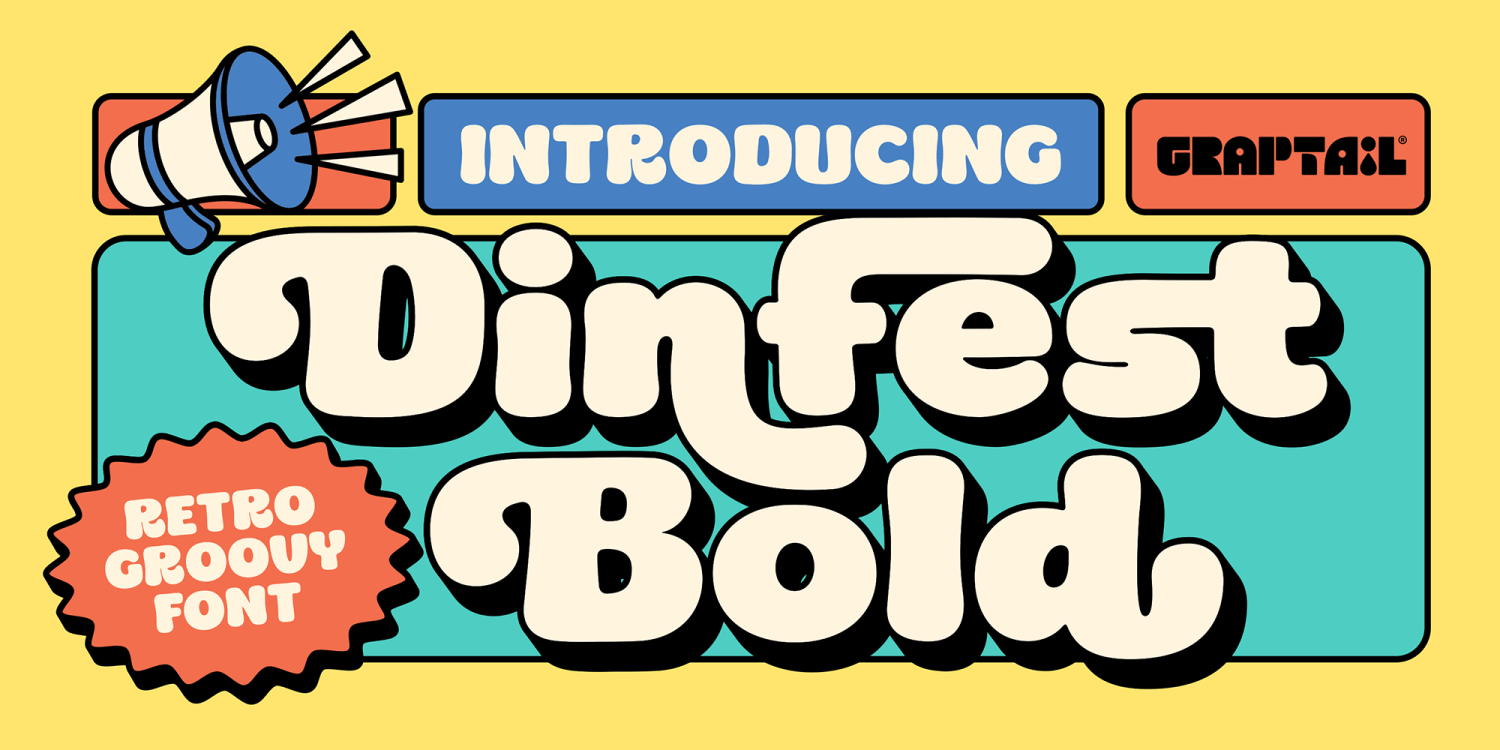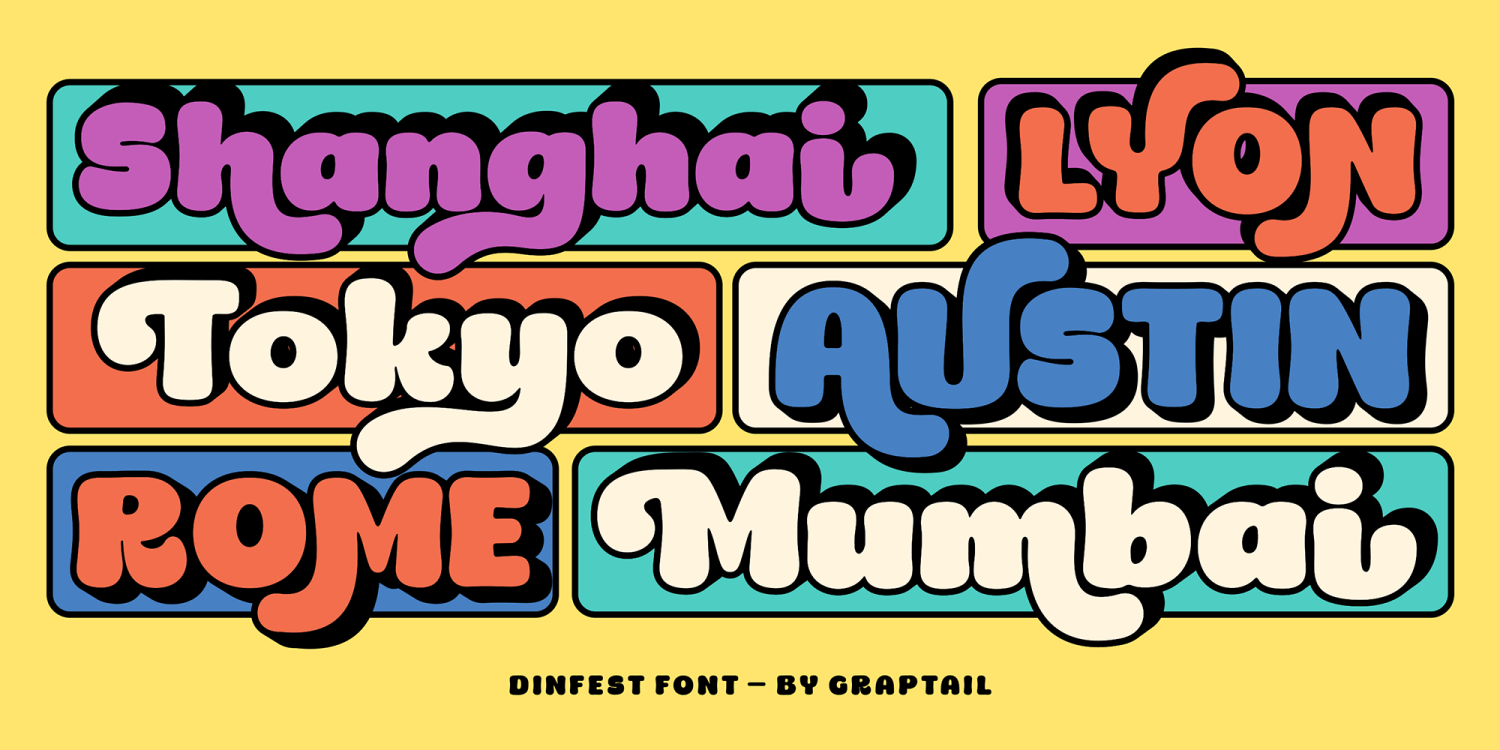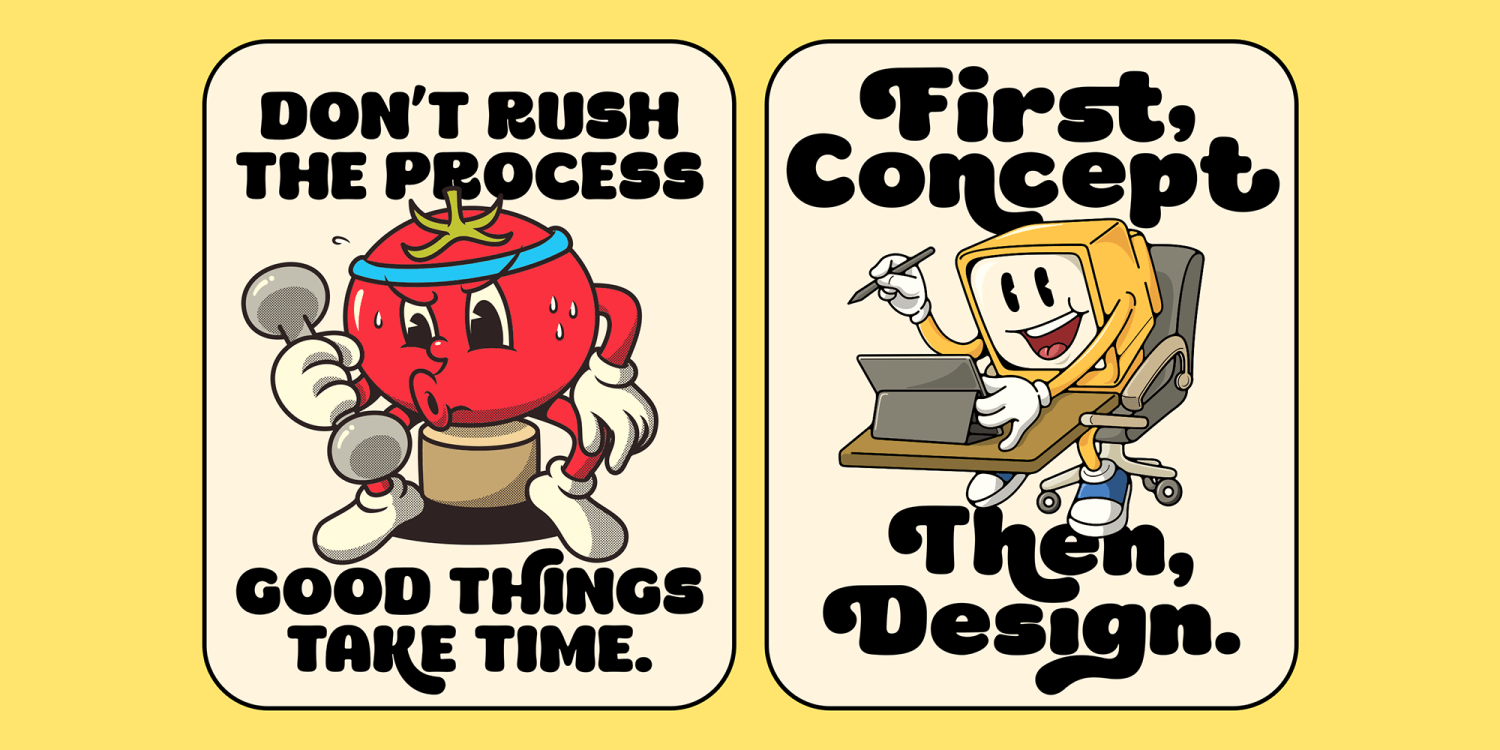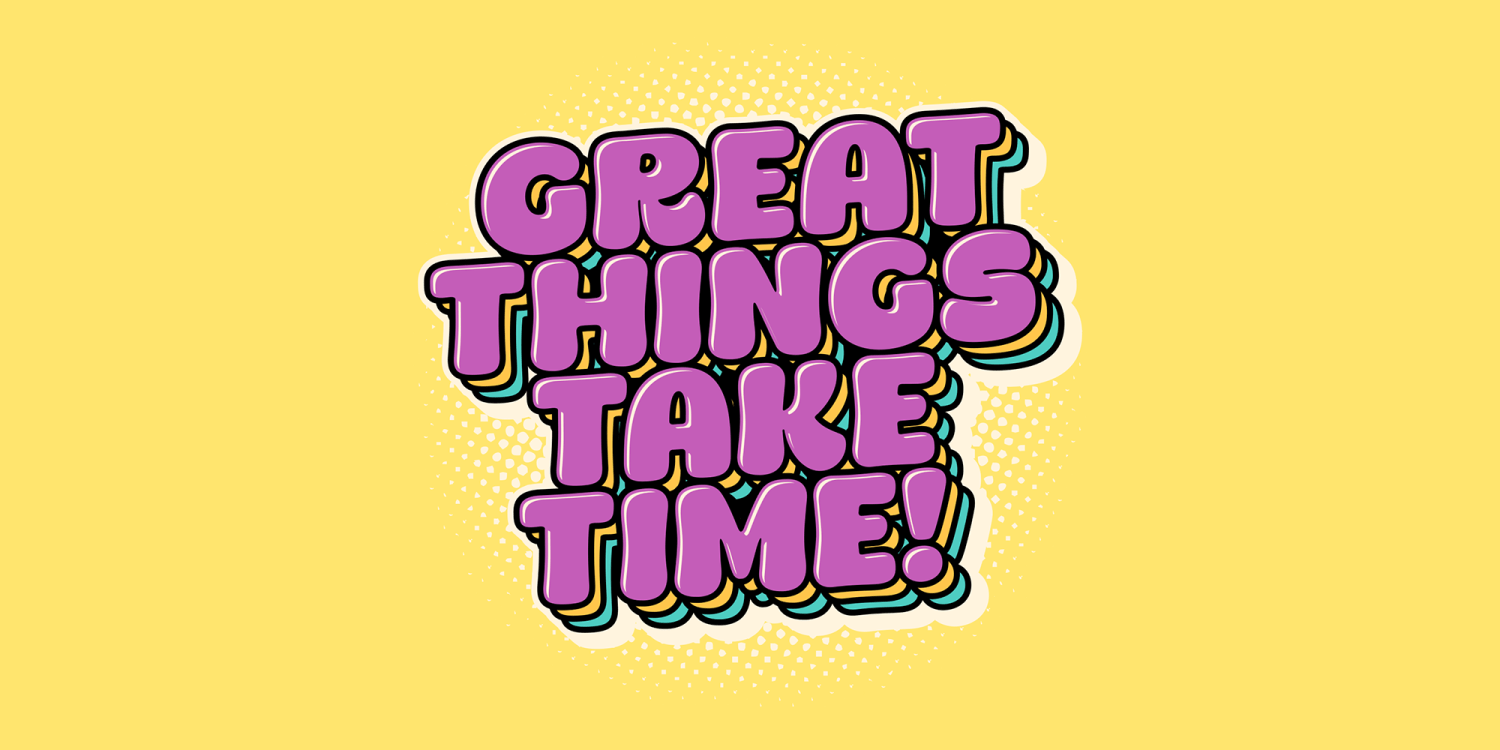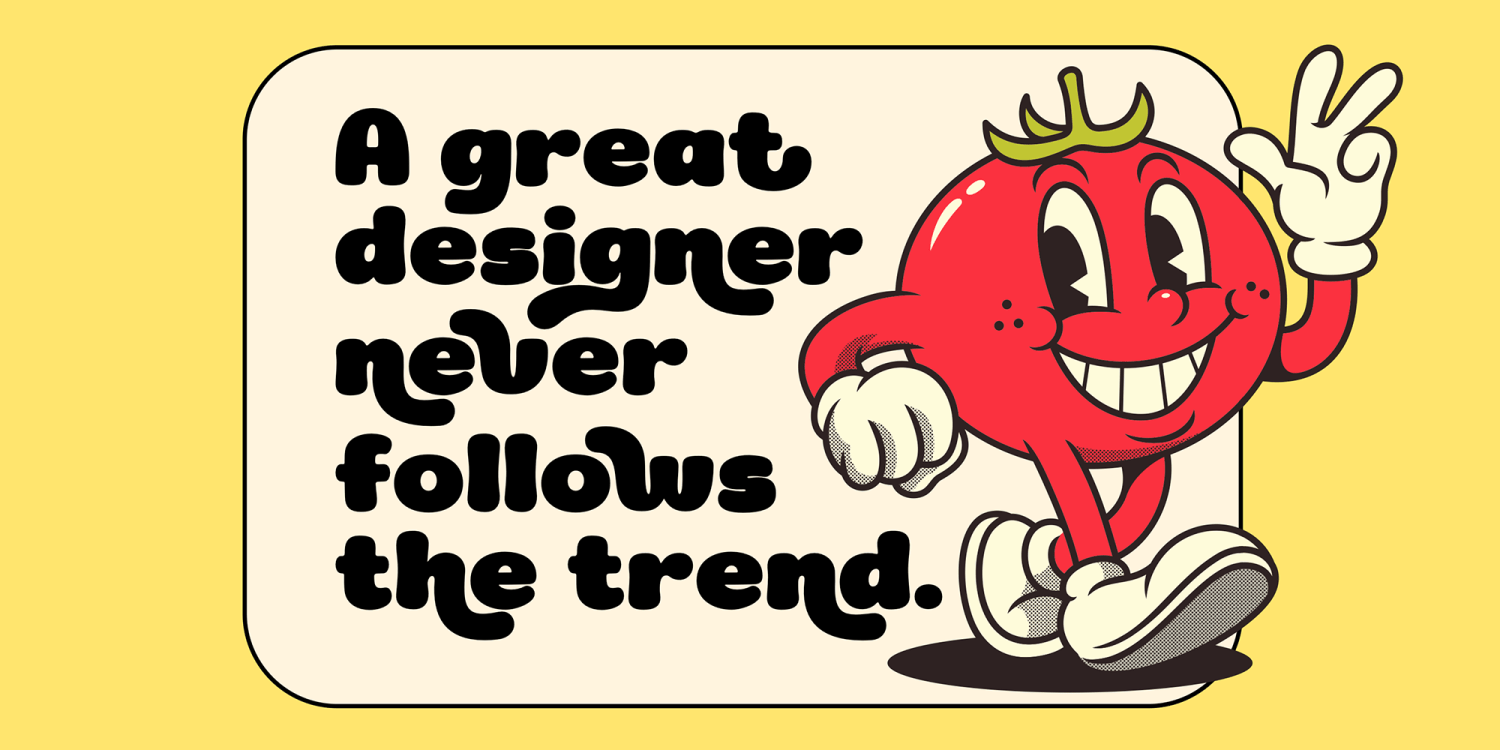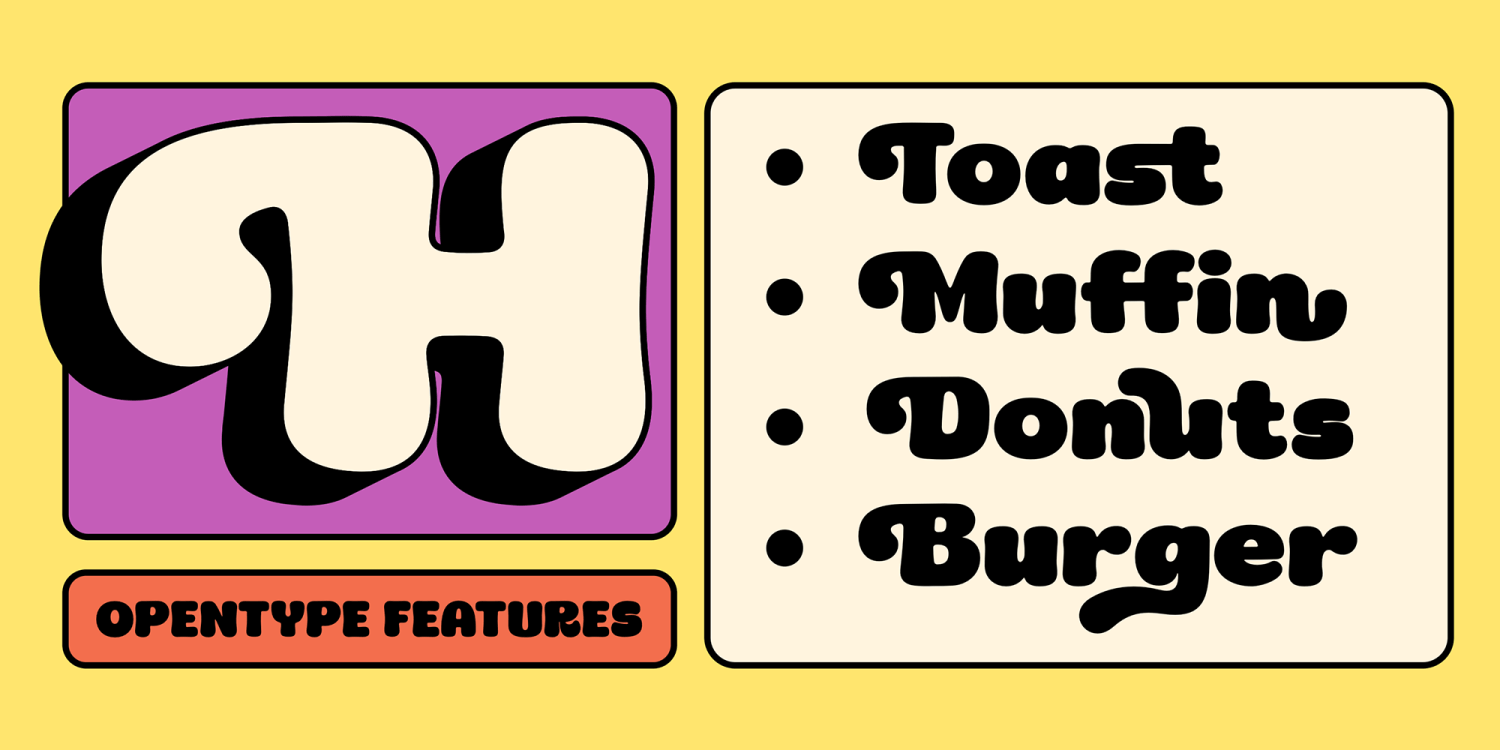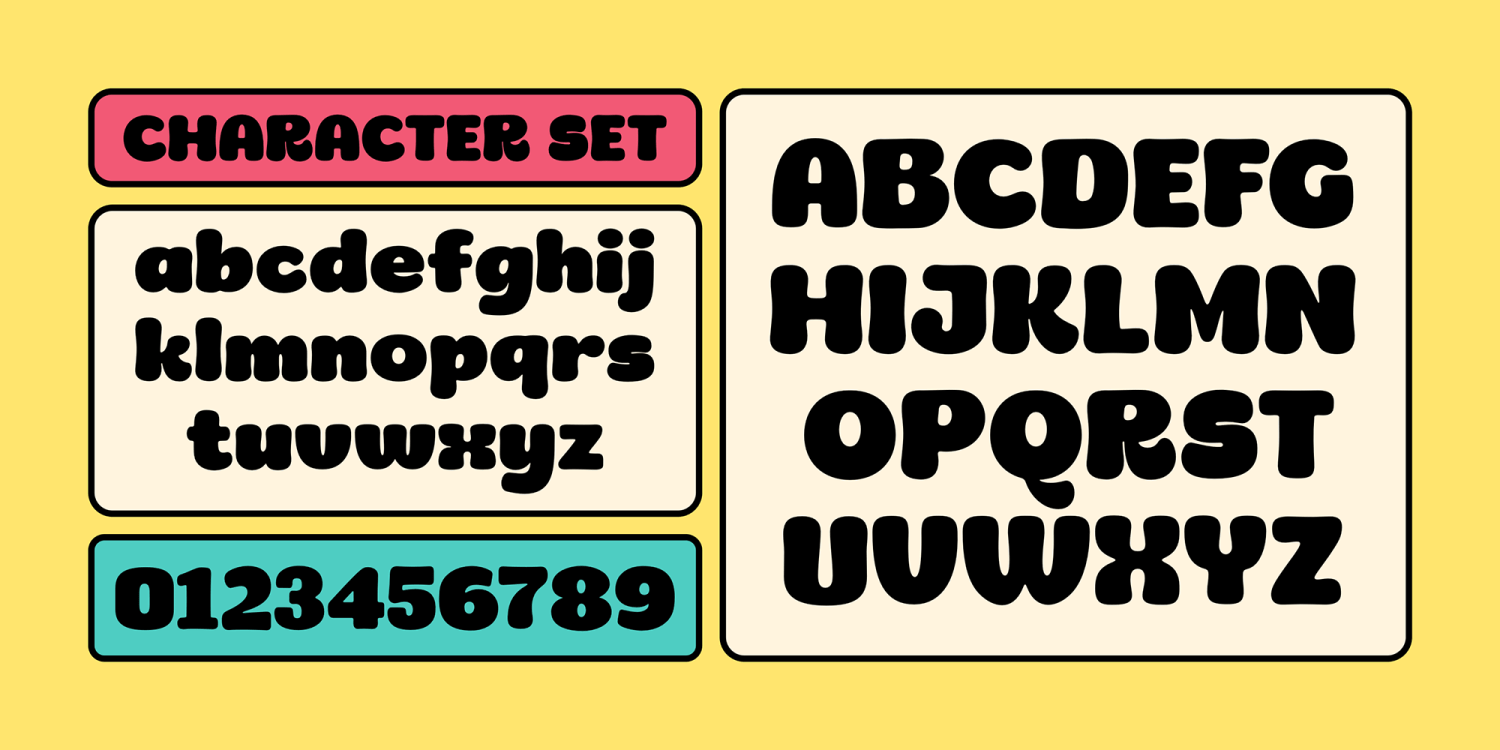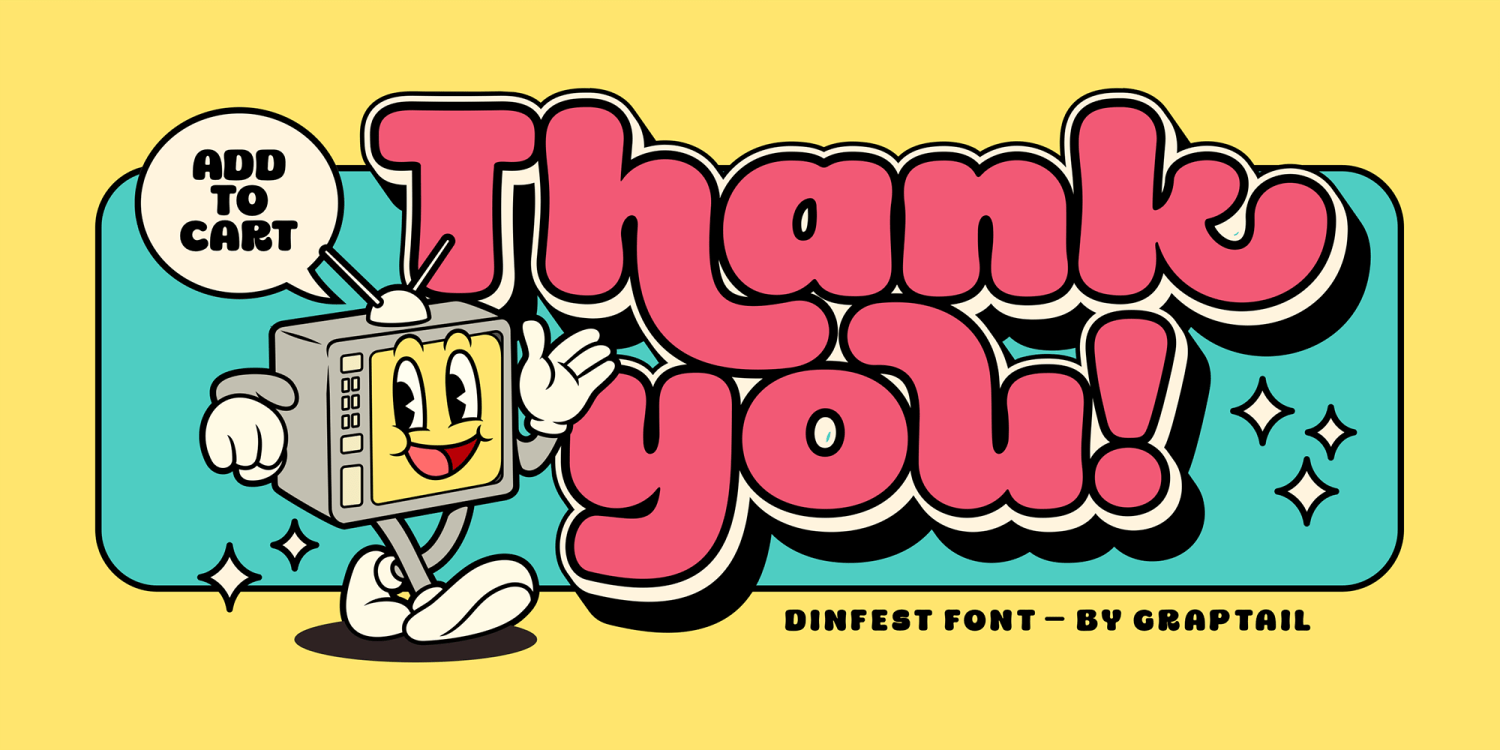
Dinfest Bold
Font Family by Graptail
Introducing Dinfest Bold, a retro-inspired font that evokes 1950s to 90s nostalgia. This font is perfect for creating vintage-themed designs and giving it a touch of nostalgia and personality.
Dinfest Bold features a soft, solid design with curved corners and a unique letter shape. This font also includes a variety of alternative characters and ligatures, allowing you to create many different looks with the same font.